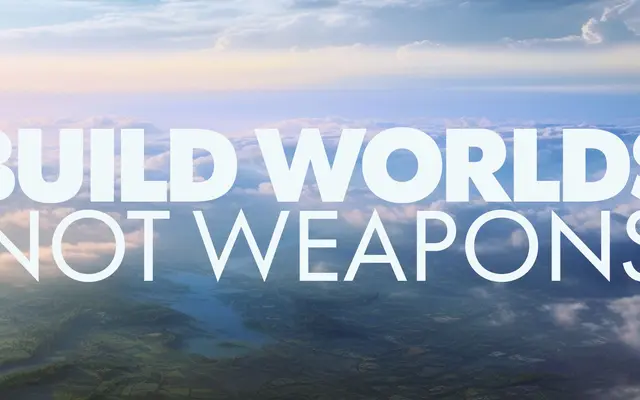
Foundation
Positype · Neil Summerour · 2026
A geometric sans serif by Neil Summerour spanning eight weights across three widths, with genuine compression in the Condensed cut and support for Latin, Cyrillic, Greek, Khmer, Lao and Thai.
Designed by Neil Summerour with collaborator Potch Auacherdkul, Foundation addresses practical shortfalls identified in existing geometric sans serifs: insufficient condensed compression, excessive girth in normal widths, and weight ranges that fall short of contemporary demands. The family runs from Light to Ultra across standard, Narrow and Condensed widths, with obliques throughout, totalling 72 styles. Optical corrections and contemporary spacing logic govern the drawing, keeping the geometric clarity legible across brand, packaging, editorial and interface applications.
Foundation is explicitly designed within the geometric sans serif tradition, applying optical corrections to idealized geometric construction. The foundry's own description places it squarely in this genre while addressing practical limitations of historic geometric sans designs.